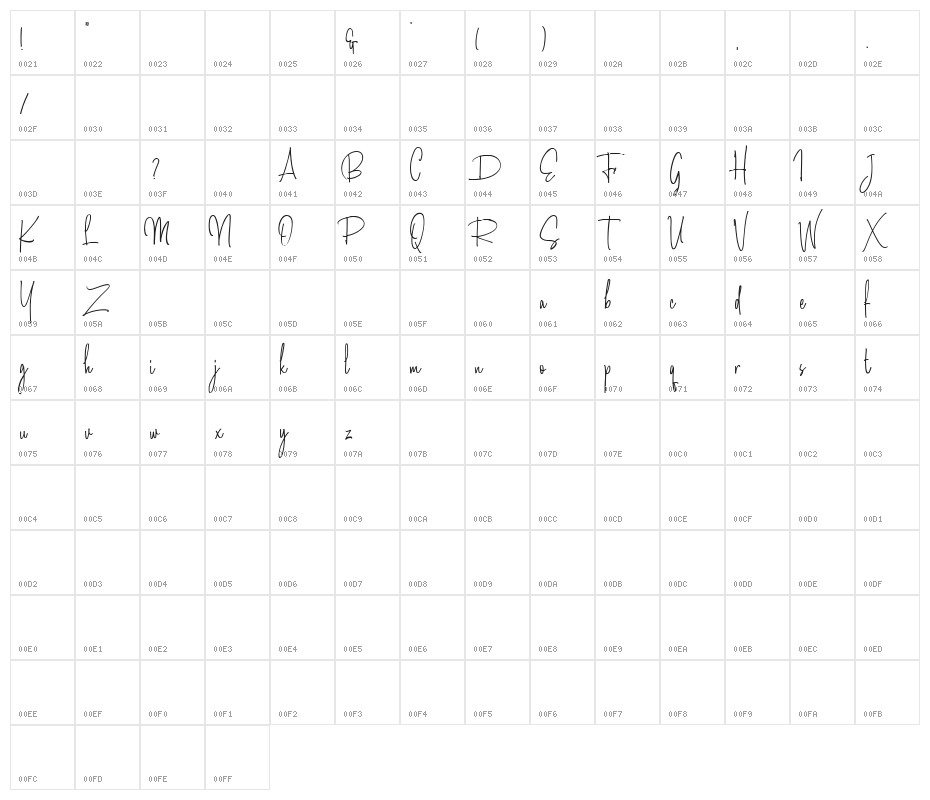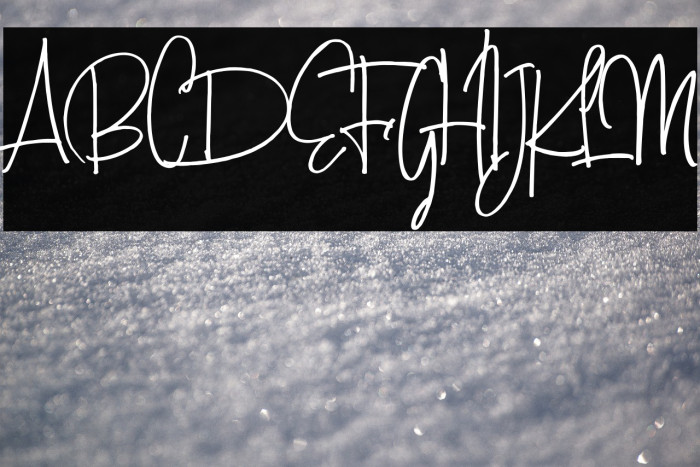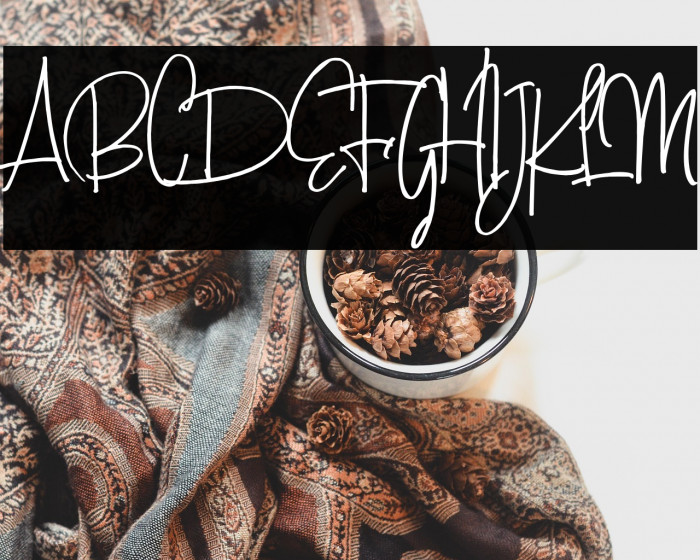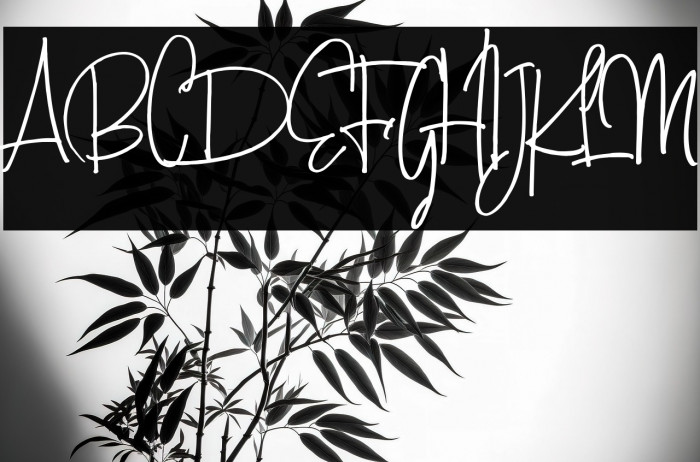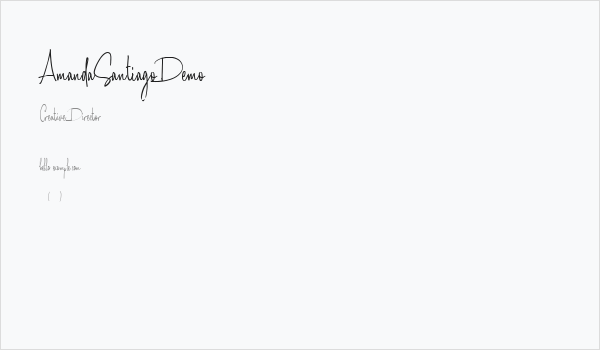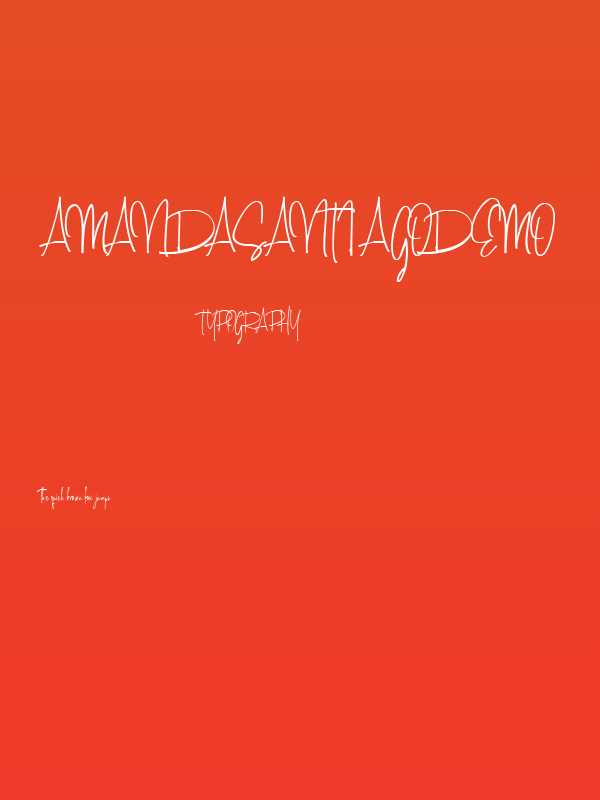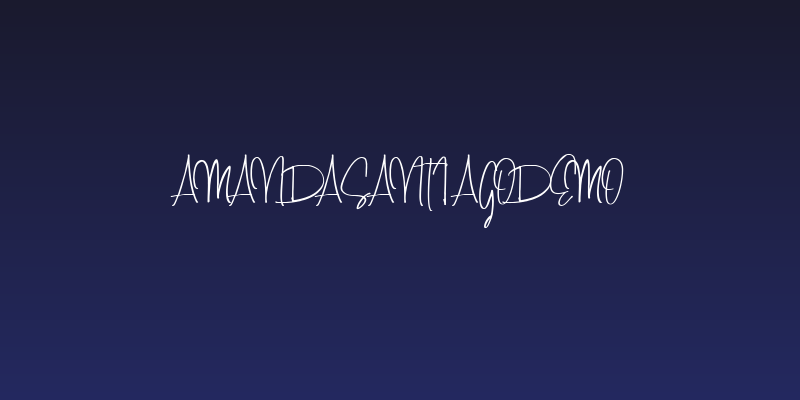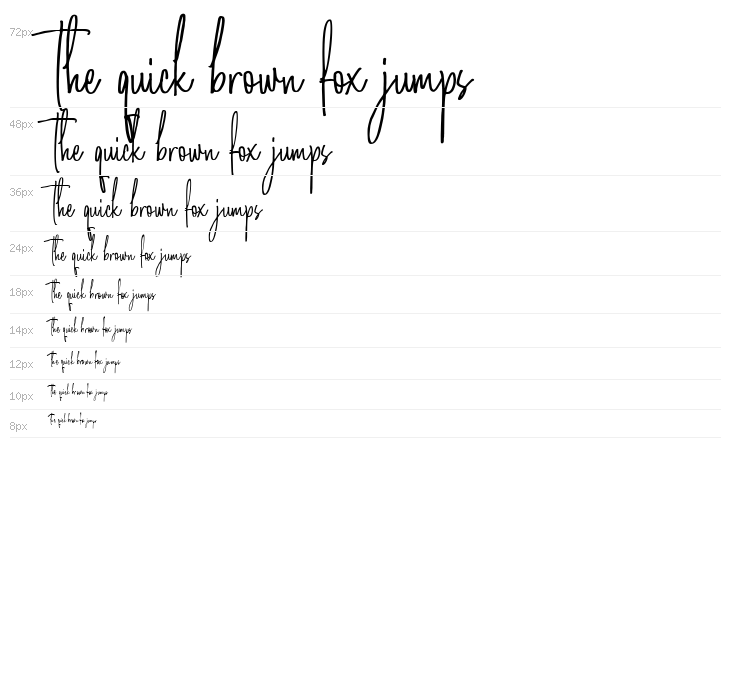
AmandaSantiagoDemo Font
AmandaSantiagoDemo Description
This font features a dynamic and expressive handwritten style, characterized by its fluid and flowing letterforms. The uppercase letters are bold and slightly irregular, giving them a lively and spontaneous appearance. The lowercase letters maintain a consistent slant and are elegantly connected, enhancing the script-like quality. The font's overall design is casual yet sophisticated, making it suitable for projects that require a personal touch. The special characters are integrated seamlessly, maintaining the font's cohesive aesthetic.
| Overall Style | Casual, Elegant |
| Proposed Projects | Ideal for wedding invitations, personal branding, greeting cards, and artistic projects requiring a personal touch. |